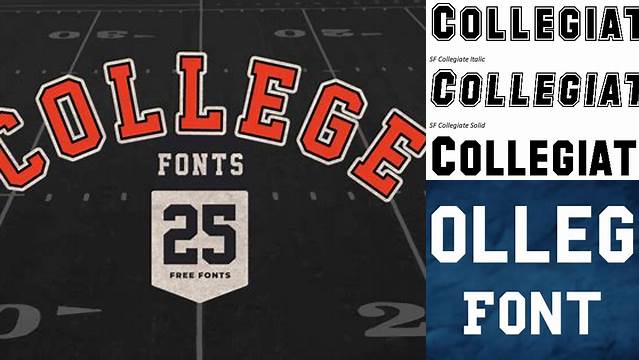
Hey guys! Are you looking for the perfect college font free to spice up your designs? Whether you're working on a school project, designing merchandise, or just want to add a collegiate touch to your creations, finding the right font is crucial. This article dives deep into the world of college font free, exploring various styles, where to find them, and how to use them effectively. So, let's get started and discover the best free college fonts out there!
1. Understanding College Font Styles
College fonts often evoke a sense of tradition, strength, and academic excellence. Different styles cater to various aesthetics, from classic serif fonts to bold sans-serif options. When searching for a college font free, it's essential to understand the common characteristics that define these typefaces. Look for fonts that are easily readable, have a strong presence, and align with the overall message you want to convey.
Classic Serif Fonts
Classic serif fonts are a staple in collegiate designs. These fonts are characterized by the small decorative strokes (serifs) at the end of each letter. Common examples include Times New Roman, Garamond, and Georgia. These fonts offer a sense of formality and tradition, making them ideal for academic documents, official publications, and designs that aim to convey a sense of history and prestige. When using a college font free that falls into this category, consider pairing it with a complementary sans-serif font for a modern touch. Serif fonts are generally highly readable, making them perfect for long blocks of text.
Bold Sans-Serif Fonts
Bold sans-serif fonts are another popular choice for college-themed designs. These fonts lack the serifs found in serif fonts, giving them a cleaner and more modern appearance. Helvetica, Arial, and Open Sans are common examples. Sans-serif fonts are often used for headlines, banners, and designs that require a strong visual impact. The boldness of these fonts can convey a sense of confidence and strength, making them perfect for sports teams, club logos, and promotional materials. When using a college font free in sans-serif, make sure it complements the overall design aesthetic.
Slab Serif Fonts
Slab serif fonts are a unique hybrid, combining the boldness of sans-serif fonts with the traditional feel of serif fonts. These fonts feature thick, block-like serifs that give them a distinct and eye-catching appearance. Rockwell and Courier New are examples of slab serif fonts. They are perfect for designs that need to stand out, such as posters, advertisements, and logos. When selecting a college font free slab serif, consider how it will interact with other elements in your design to ensure a cohesive and visually appealing result.
FontSpace
FontSpace is a community-driven website that offers thousands of free fonts. The site features a clean and intuitive interface, making it easy to browse and discover new fonts. FontSpace includes numerous college font free options, ranging from classic styles to more contemporary designs. Users can also create collections of their favorite fonts and share them with others. Always review the license agreement for each font to ensure it aligns with your intended use. FontSpace is a valuable resource for designers seeking a wide variety of free fonts and inspiration.
3. How to Choose the Right College Font
Choosing the right college font free involves several considerations. The font should align with the overall design aesthetic, be easily readable, and convey the desired message. Here are some tips to help you make the right choice:
Consider the Project Type
The type of project you're working on will influence the font you choose. For academic documents, a classic serif font might be the best option. For sports team logos or promotional materials, a bold sans-serif font could be more appropriate. Think about the context in which the font will be used and select one that complements the overall design. When selecting a college font free, consider the specific requirements of the project to ensure the font enhances the final product.
The evolution of college font throught out the year, starting from the ancient to the modern look.
29. College Font as a Trend
Why college font is a trend right now, what make it so popular in the digital marketing and design.
30. Future Prediction for College Font
Future prediction for college font, is this a trend that will stay longer or just for a season.